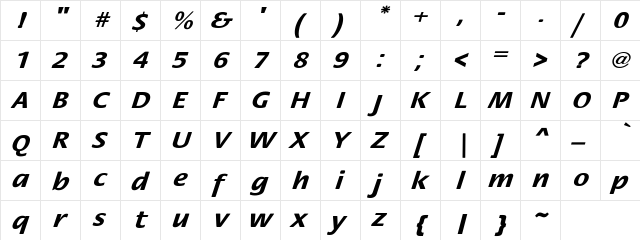
FloraExtObl-Bol Regular
Design Context for FloraExtObl-Bol Typeface
FloraExtObl-Bol offers clean, dependable letterforms without strong stylistic allegiance, making it a practical choice for designers who need flexibility.
Pro Tip: Use FloraExtObl-Bol in both headline and body roles to test its range before committing to a single application.